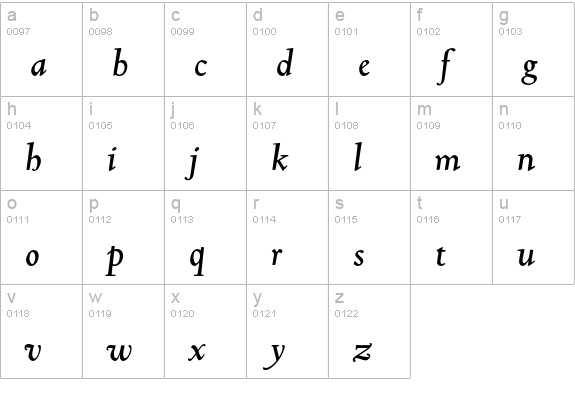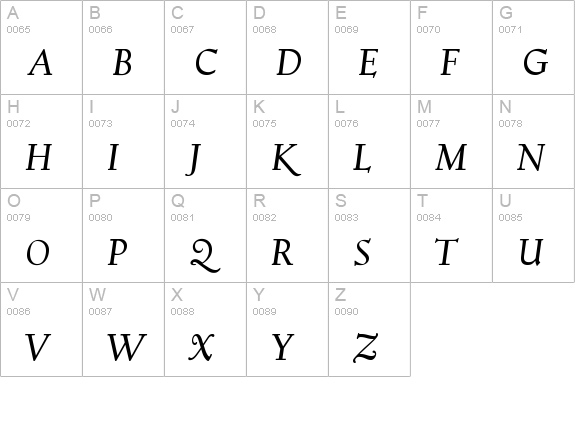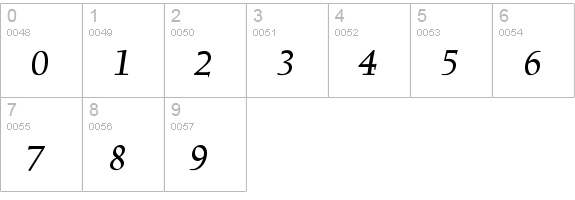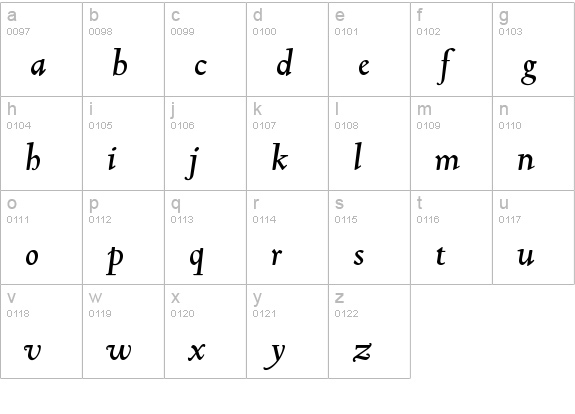
Truesdell Std Bold Italic is a strong, high-contrast, italic variant in the Truesdell typeface family \xE2\x80\x94 well suited to headlines, attention-grabbing titles, and strong calls-to-action.
Truesdell Std Bold Italic is a stunning and versatile typeface that exudes confidence and elegance. With its bold and slanted design, this font is perfect for making a bold statement or adding a touch of sophistication to any project. With its strong and assertive letterforms, Truesdell Std Bold Italic commands attention and stands out from the crowd. Its italicized style adds a hint of dynamism and flair, making it a go-to choice for designers looking to add a touch of creativity to their work. One of the best things about Truesdell Std Bold Italic is that it is completely free. Thanks to the generosity of FontsMarket.com, this font is freely available for download, allowing designers and creatives to unleash their creativity without breaking the bank. Whether you're designing a logo, creating a striking headline, or designing a poster, Truesdell Std Bold Italic will bring your words to life. Its boldness and italicized slant make it incredibly eye-catching, ensuring that your message leaves a lasting impression. So why wait? Download Truesdell Std Bold Italic today from FontsMarket.com and unlock a world of possibilities. Whether you're a professional designer or an aspiring creative, this font will elevate your work and give it a professional edge. Embrace the freedom of Truesdell Std Bold Italic and let your creativity soar.